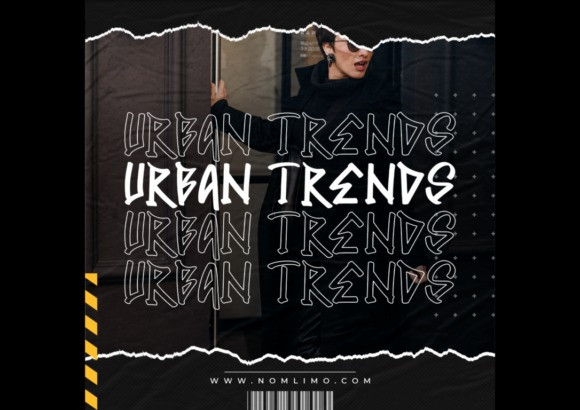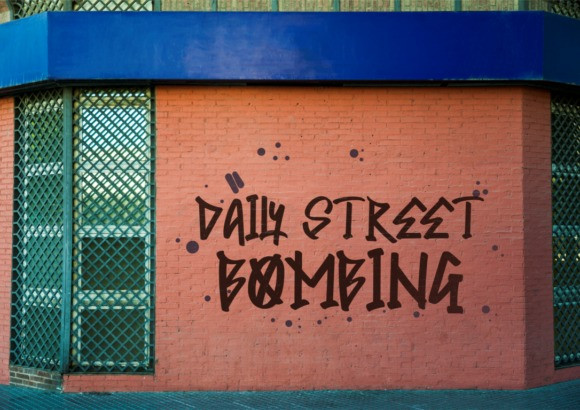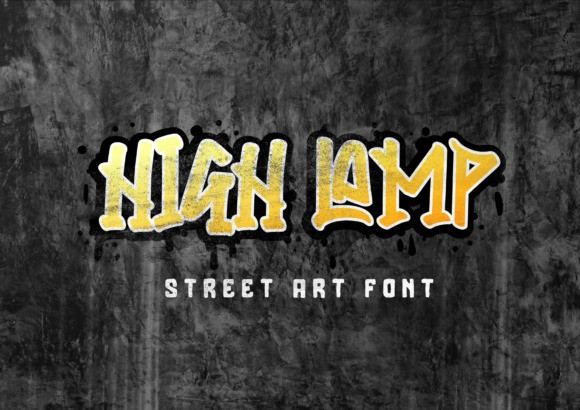
High Lamp Font
High Lamp Font is an awesome, graffiti-styled display font that has a futuristic, street art vibe. This font is suitable for designs such as t-shirts, sportswear, logos, advertisements, clothing, and more.